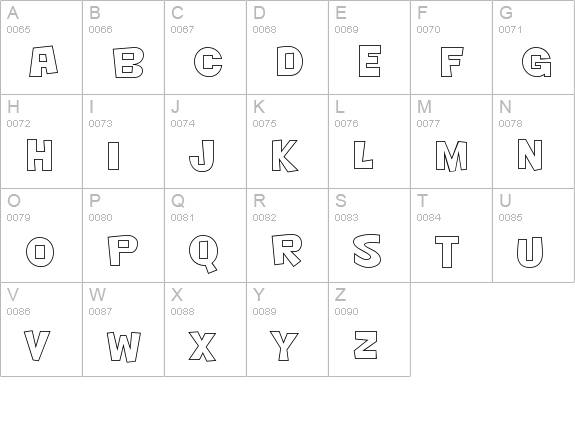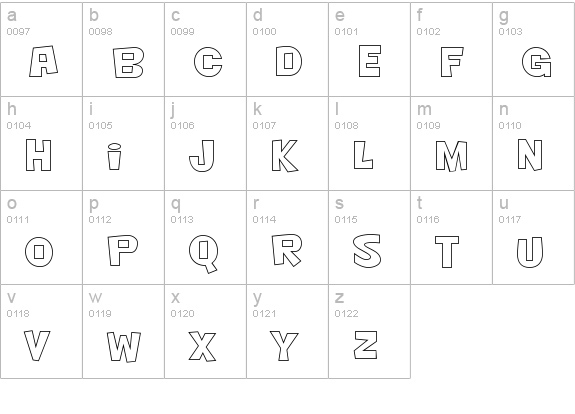
Nightclub BTN Out Font Details
Nightclub BTN Out font is a bold and stylish typeface that exudes a sense of excitement and energy, making it perfect for any project that requires a touch of sophistication and flair. Its unique design features sharp edges and a modern look that will make your text stand out. This font is versatile and can be used for various purposes, such as posters, flyers, logos, and more. The best part is that Nightclub BTN Out font is available for free on FontsMarket.com. You can easily download it and start using it in your projects right away. Don't miss out on the opportunity to add this eye-catching font to your collection and take your designs to the next level.